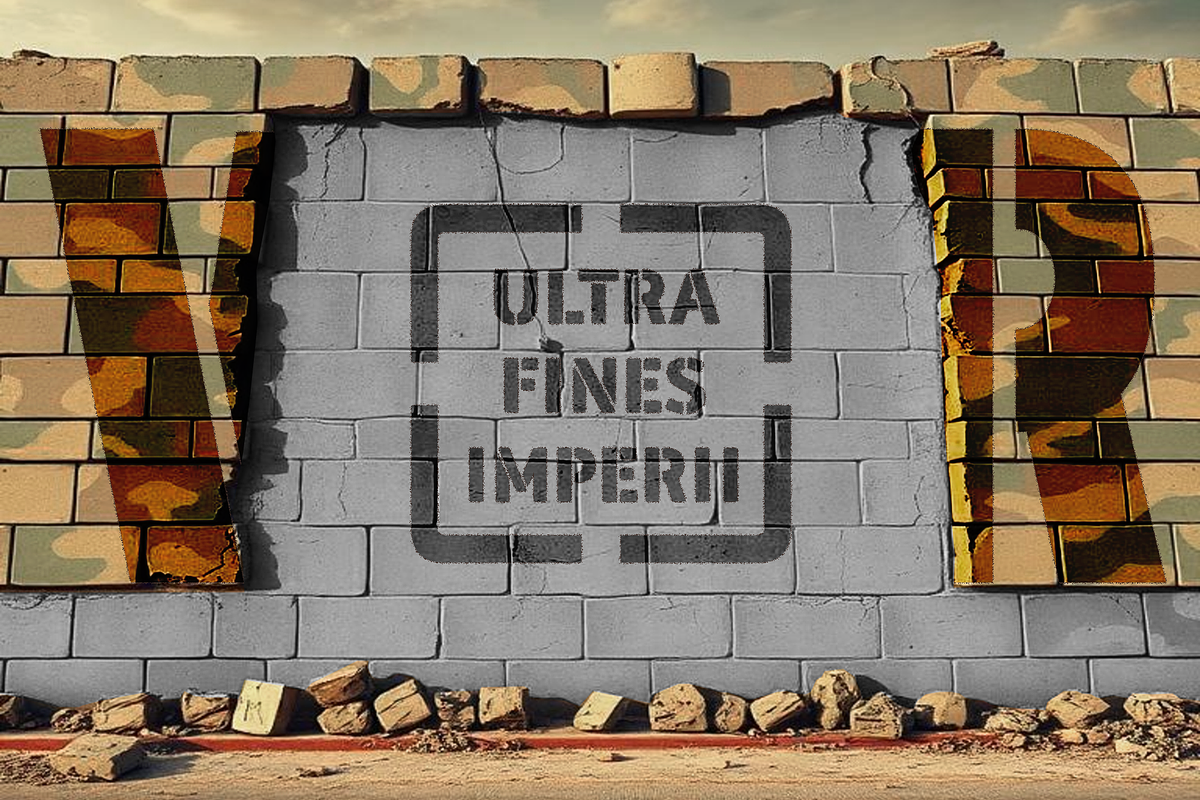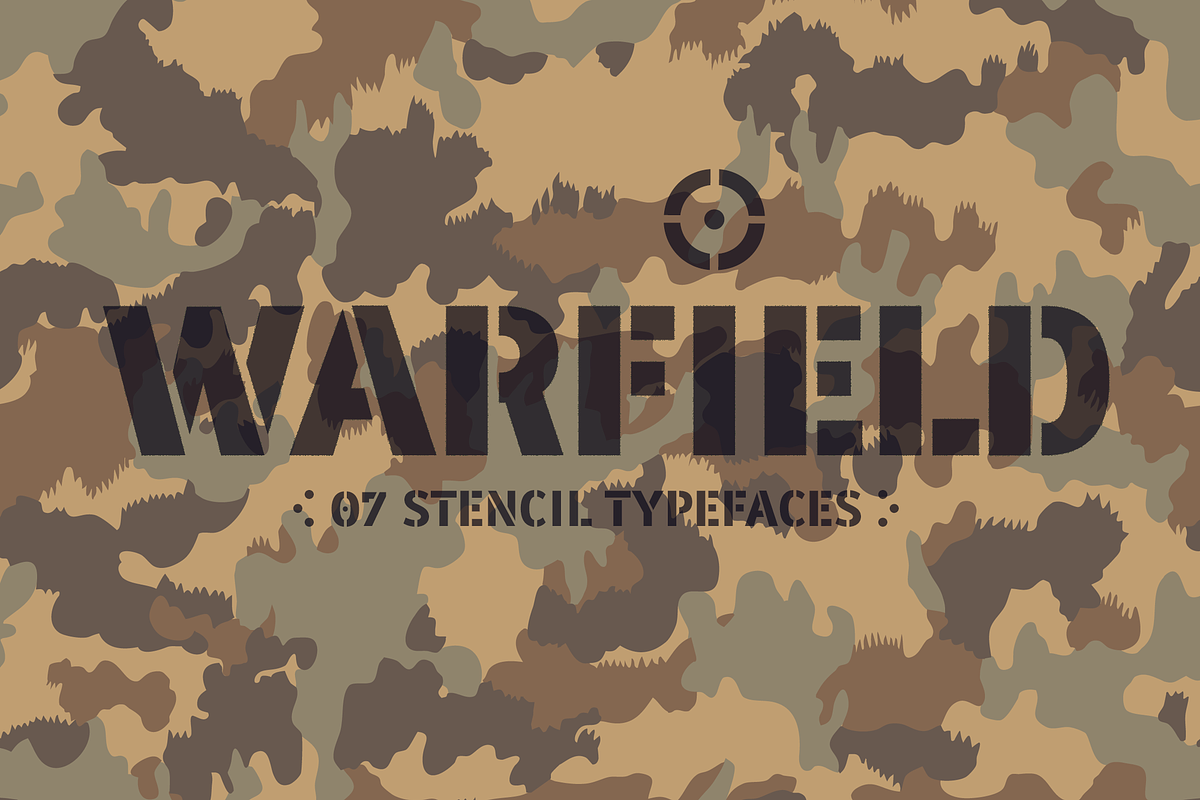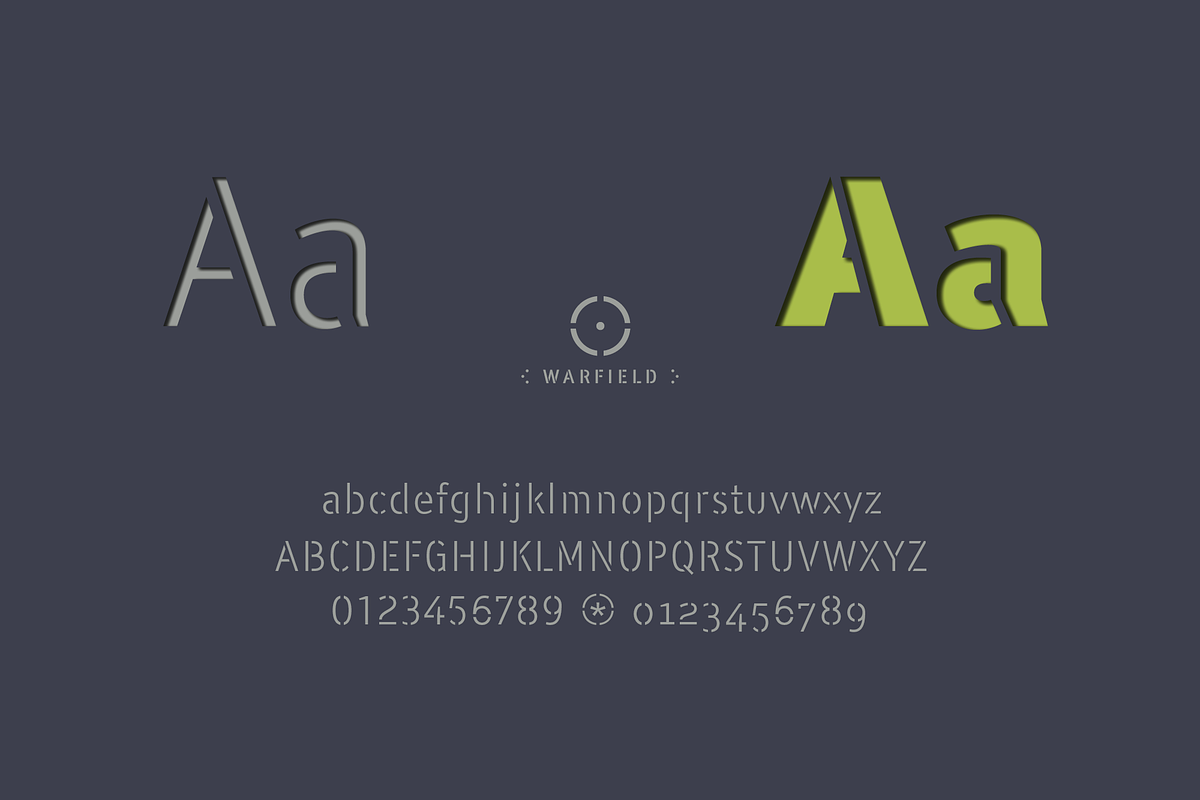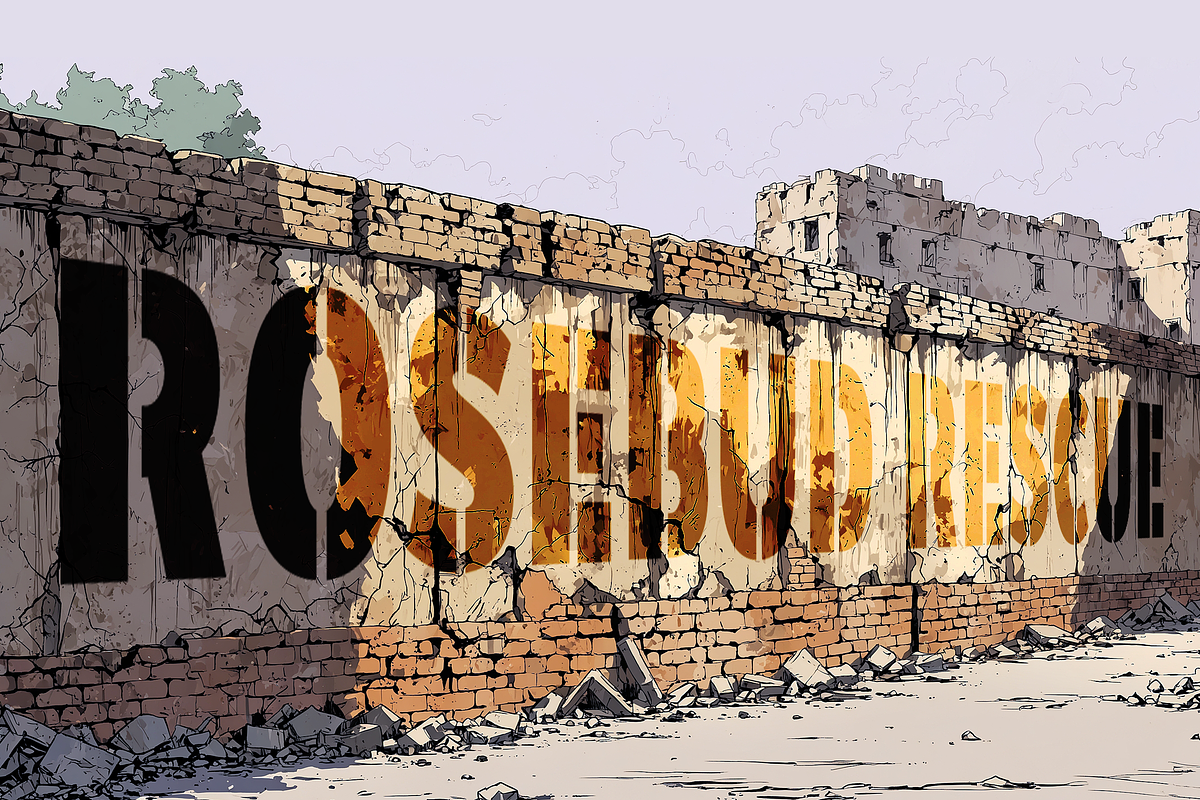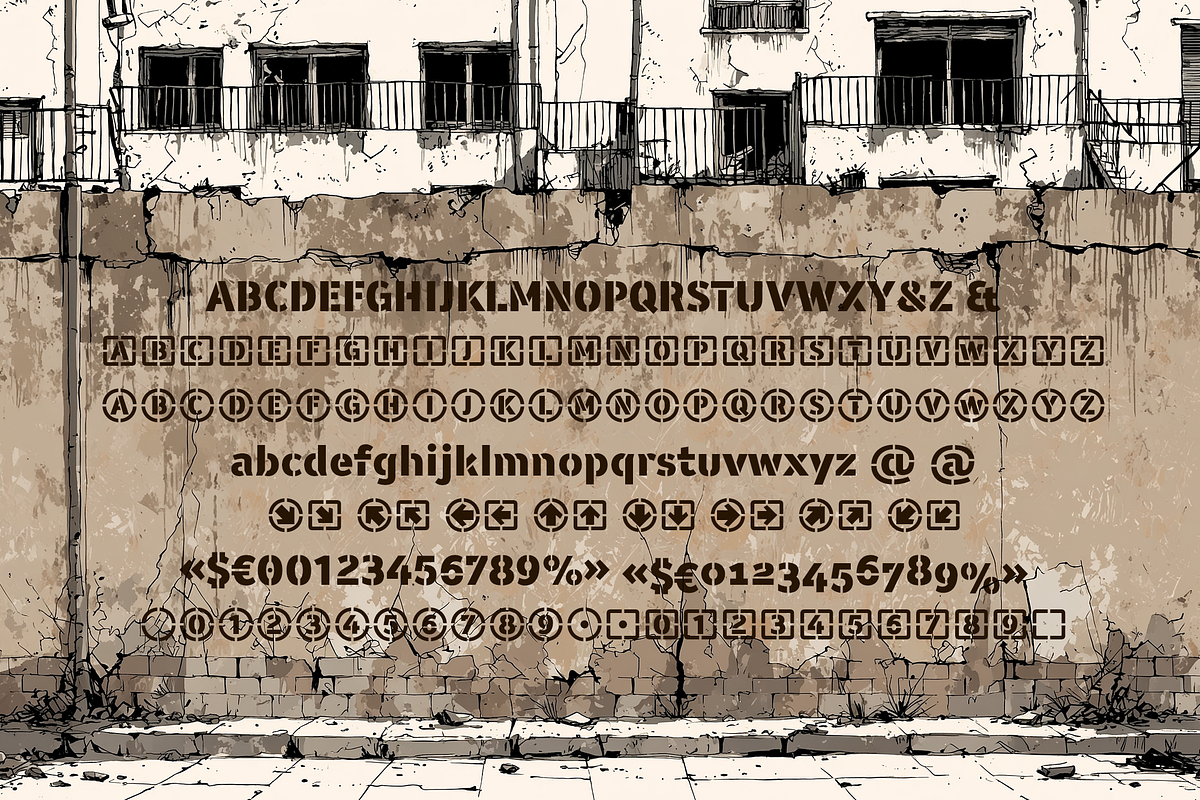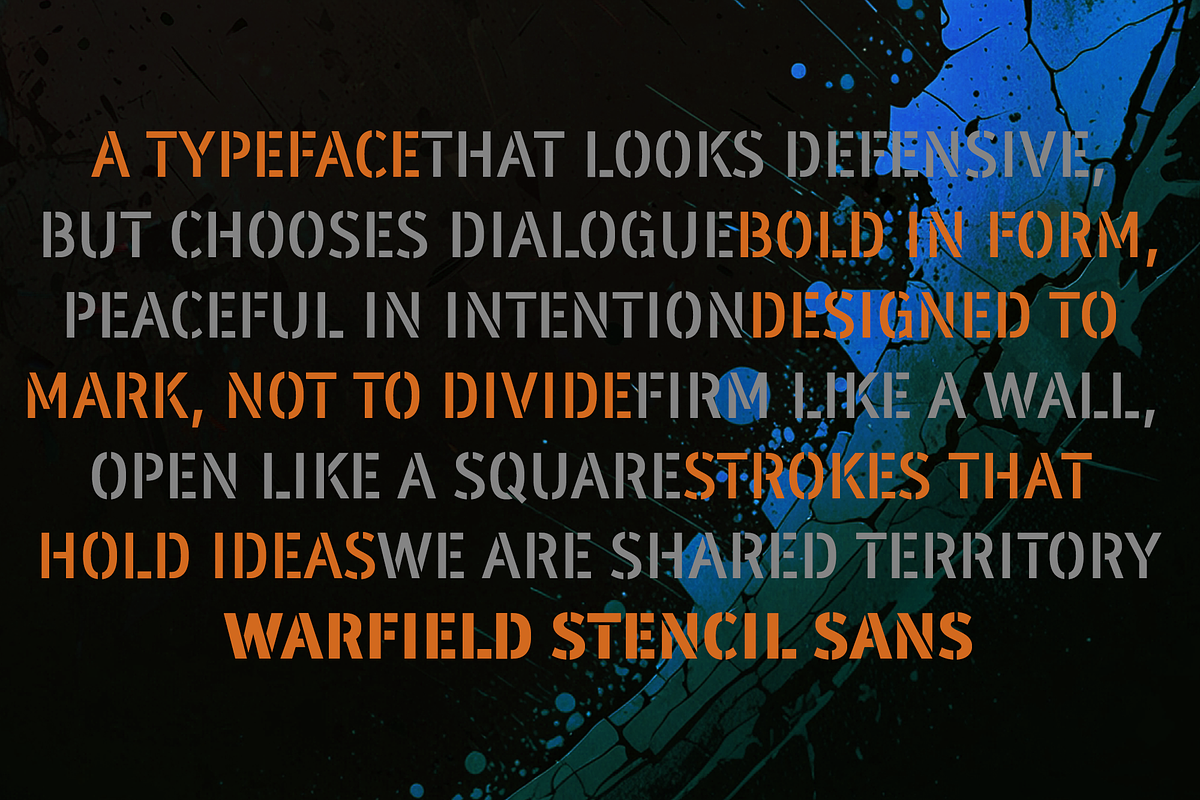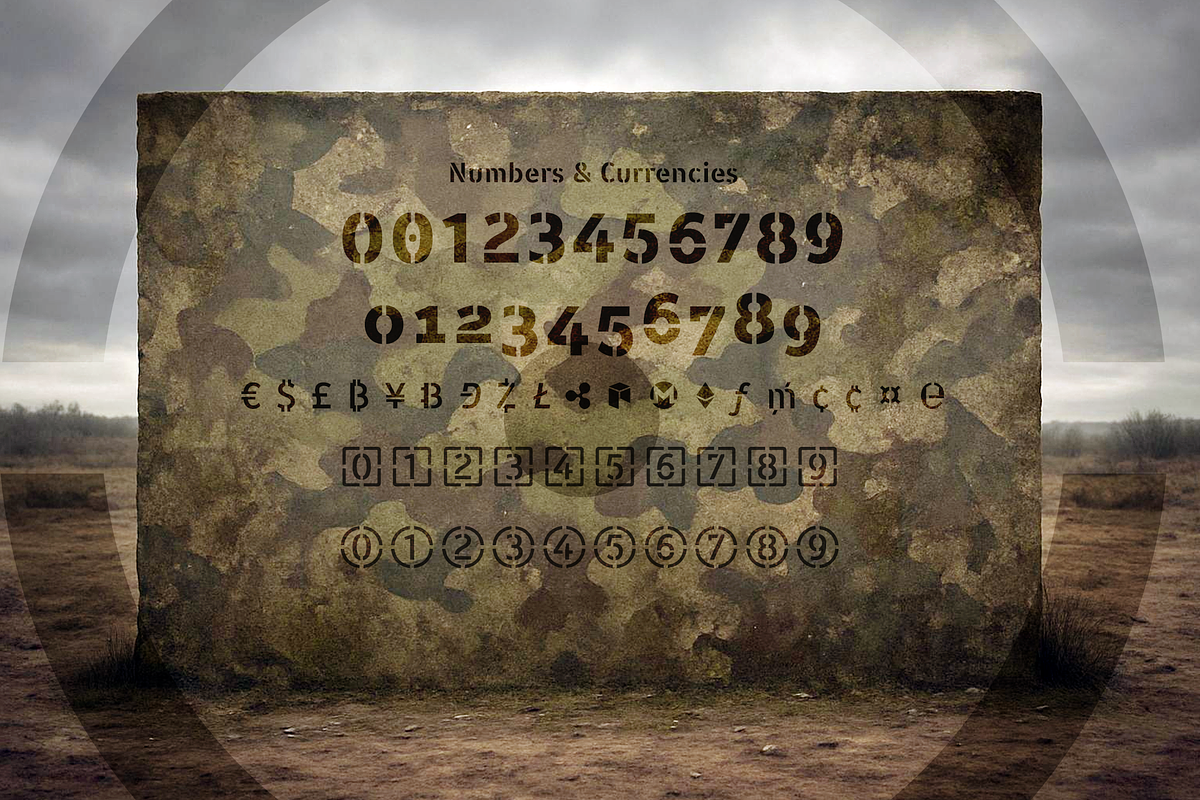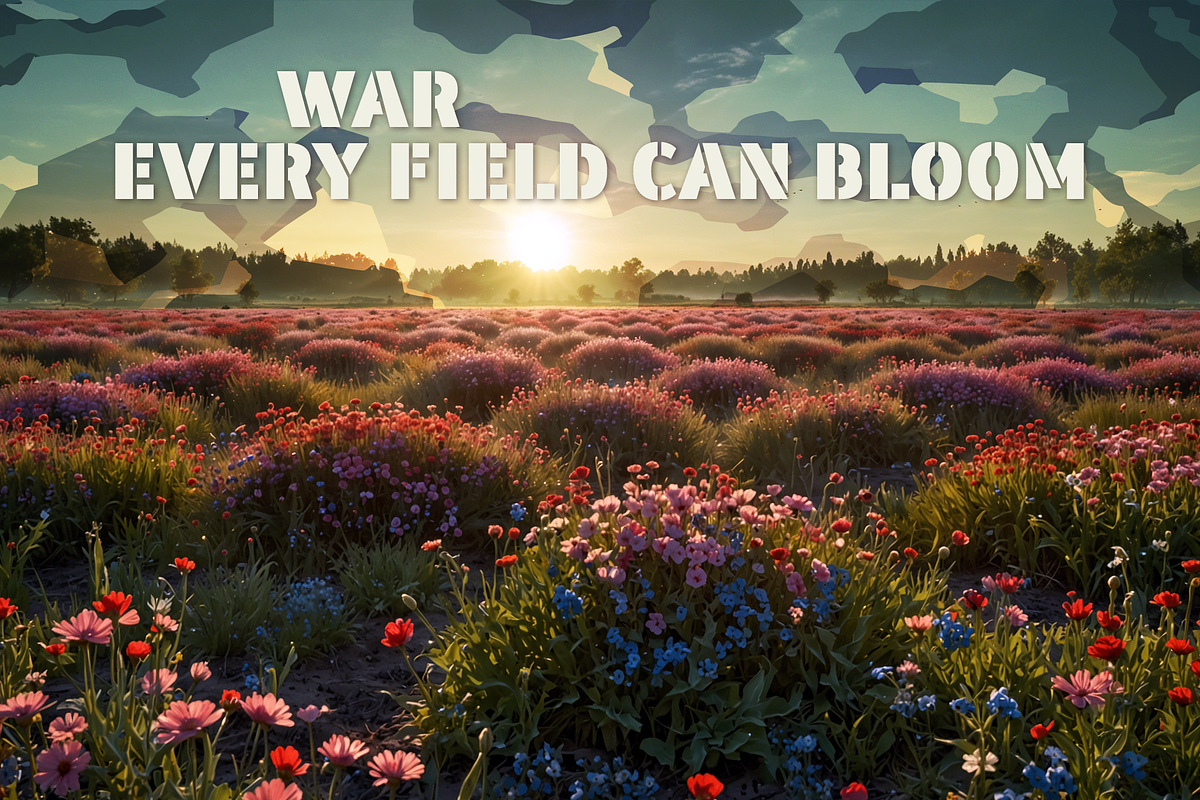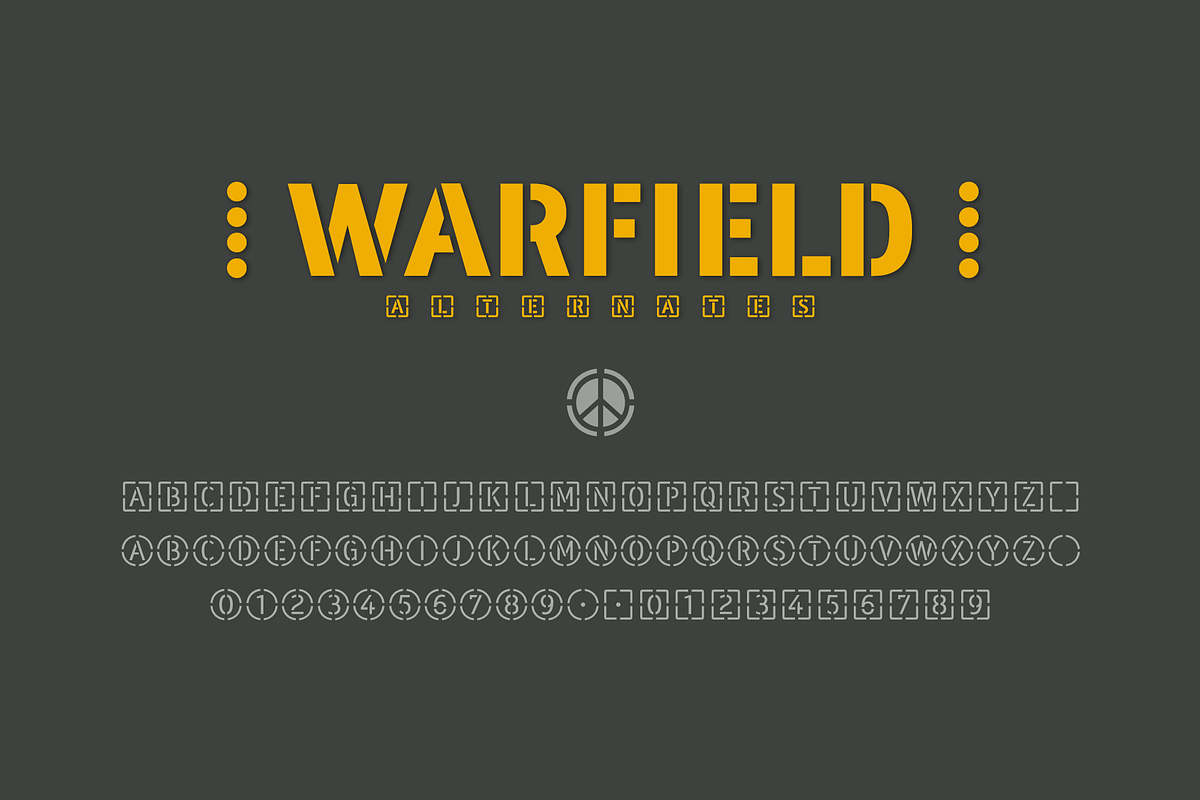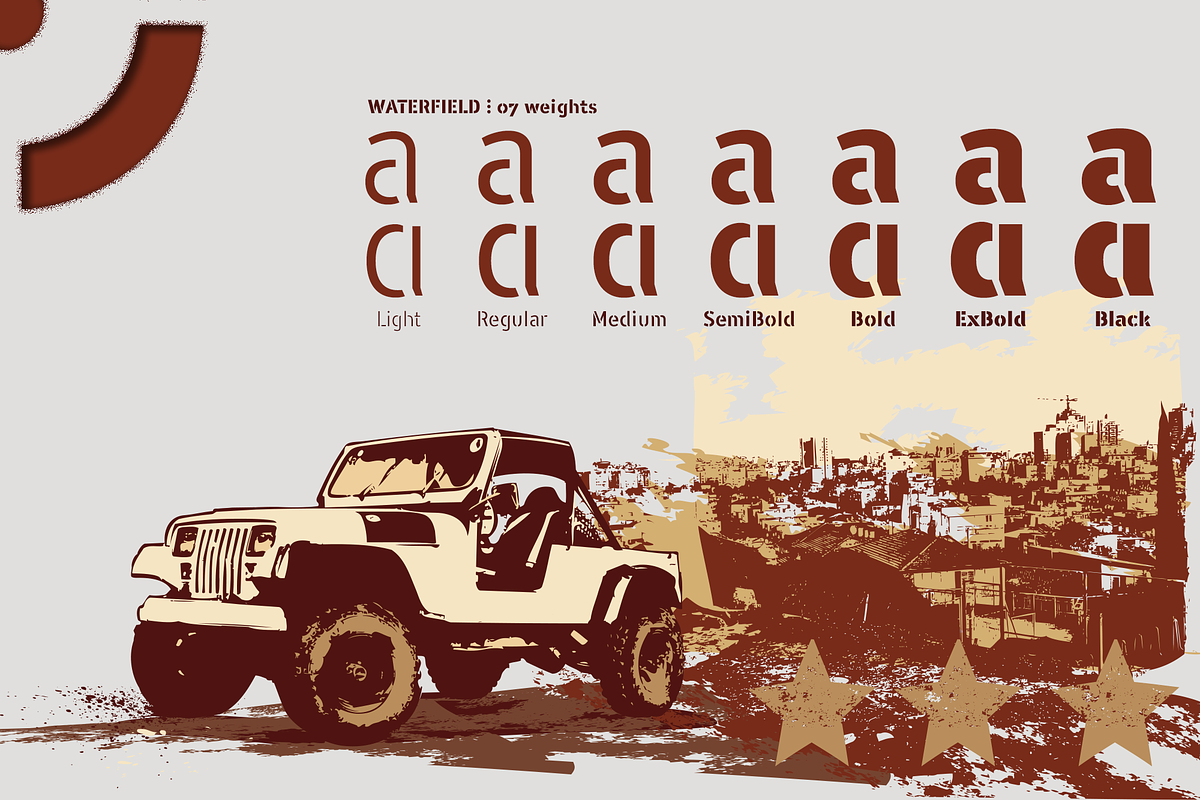
WATERFIELD Stencil
WARFIELD is, by definition, a stencil typeface, drawing from its military and industrial heritage, but shedding any aggressiveness to embrace absolute legibility.
It is a contemporary sans-serif that is not only read but also felt, proudly displaying the breaks, bridges, and interruptions that define it, giving it a straight and solemn bearing.
From the ethereal subtlety of Light to the resounding authority of Black, Warfield offers seven weights designed to withstand any creative battle.
Each weight maintains the integrity of the stencil system and exceptional legibility. I designed each cut with precision to ensure clean reading, even at small sizes or in demanding contexts. I wanted impact, but also control. My goal wasn't to create a font, but an ecosystem.
- 812 glyphs. Latin Extended-A. 219 alternates.
- WATERFIELD Stencil include the symbol of Bitcoin and currency symbols.